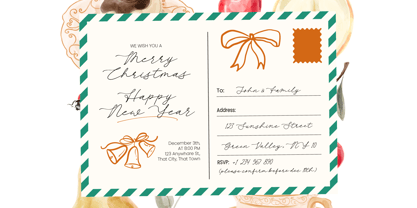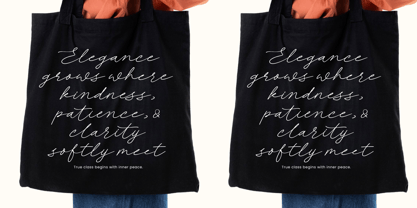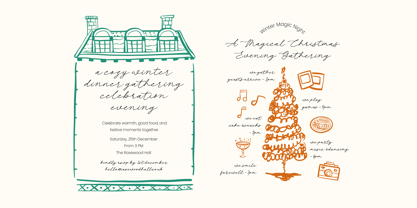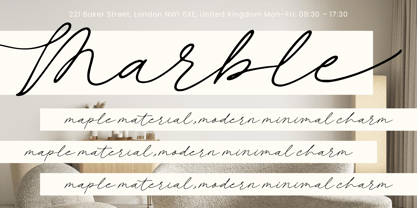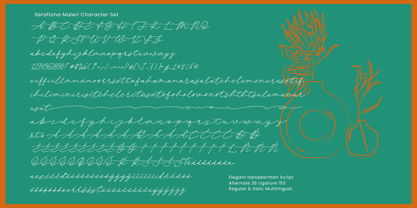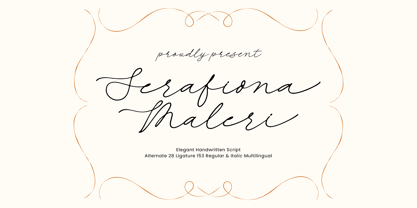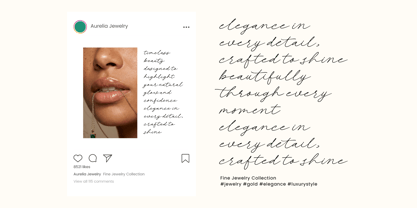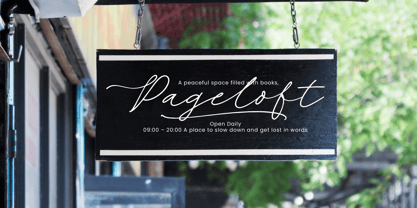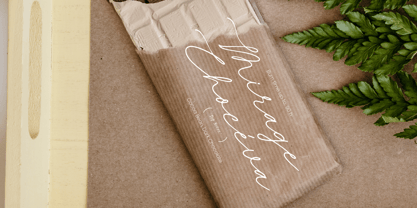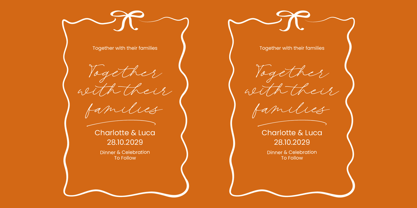
Serafiona Maleri
Serafiona Maleri - Elegant Handwritten Script
Serafiona Maleri is an elegant handwritten script font designed to bring sophistication and grace to your typography projects. With its smooth flowing strokes, delicate curves, and refined letterforms, this typeface captures the beauty of natural calligraphy while maintaining modern readability.
The font features 28 alternates, 153 ligatures, and both regular and italic styles, along with multilingual support. This allows you to create fluid, customized compositions with seamless letter connections and expressive swashes. Each character is carefully crafted to deliver a luxurious handwritten feel, perfect for premium branding.
Serafiona Maleri works beautifully for wedding invitations, logo design, fashion branding, packaging, editorial layouts, social media graphics, and elegant display headlines. Its balance of softness and precision makes it ideal for projects that require a timeless, classy, and feminine touch.